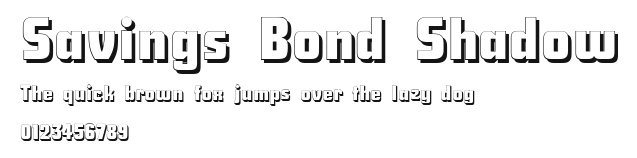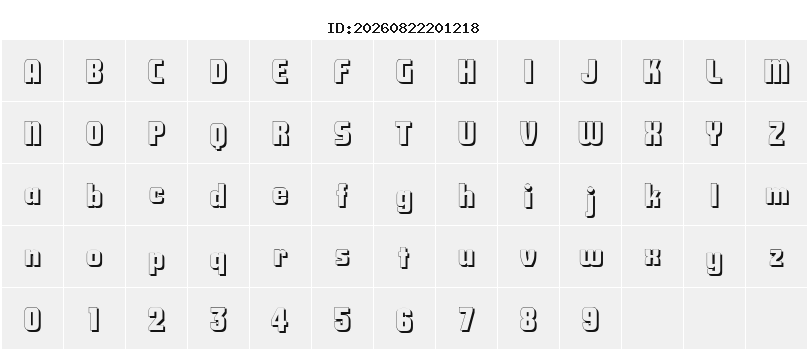
Savings Bond Shadow Preview
• Font Name: Savings Bond Shadow
• Full Font Name: Savings Bond Shadow
About Savings Bond Shadow.ttf
Savings Bond Shadow.ttf is a modern, elegant sans-serif font designed for ultimate readability and visual harmony. Perfect for branding, headlines, web design, and print materials.